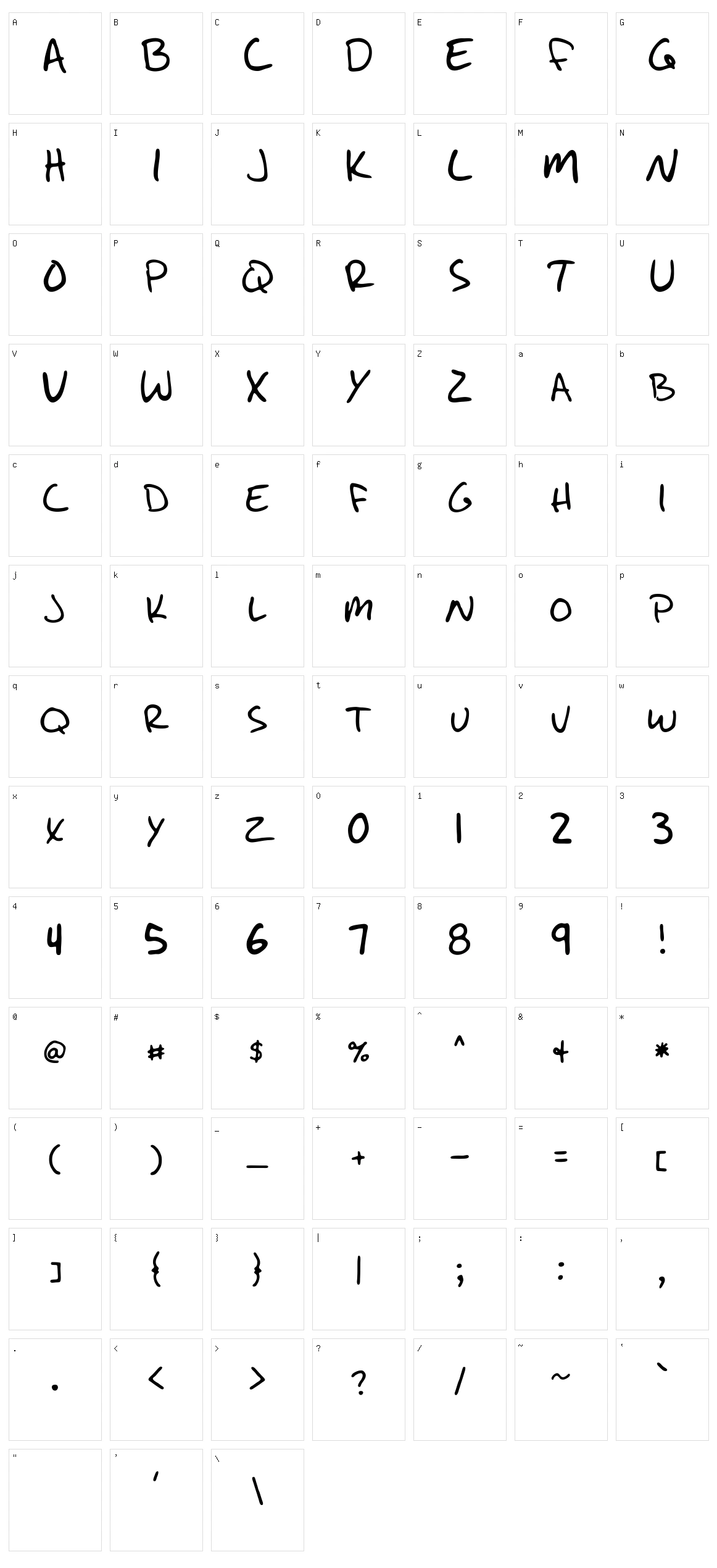
The free font Write Like Jesse is carefully designed by Jesse Gerard, showcasing a thoughtful balance of creativity and usability and falls under the Script font style. When you download the ZIP file, it contains only 19.05 KB of font files, making it lightweight and quick to download. Please review the license details below to understand permitted usage and distribution rights. If license information is not available, we recommend using this font for personal projects only or contacting the author directly for commercial usage permissions.